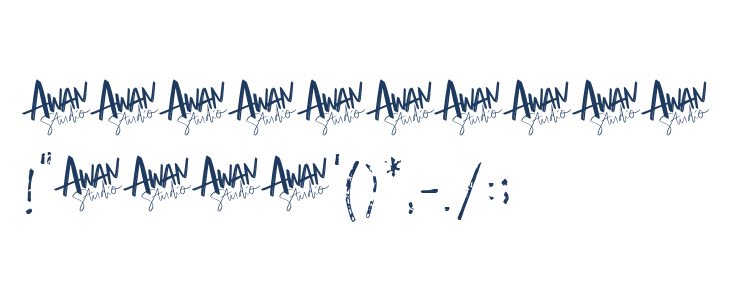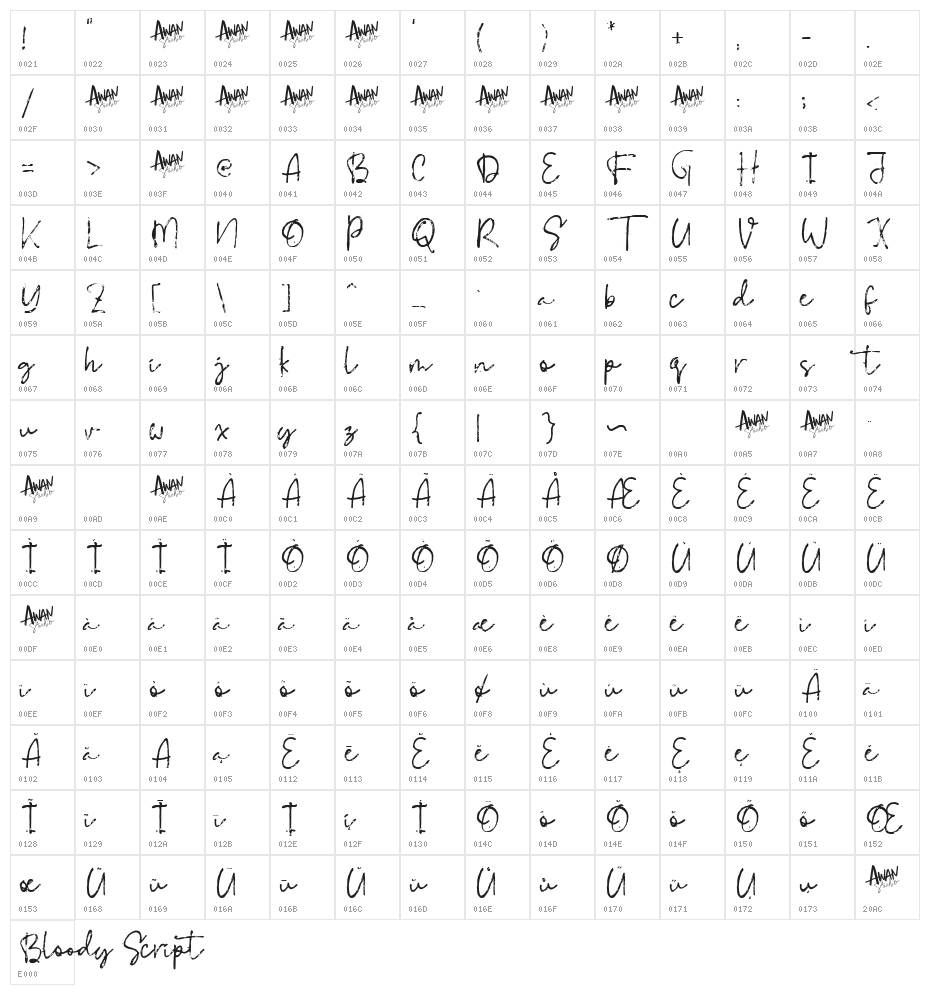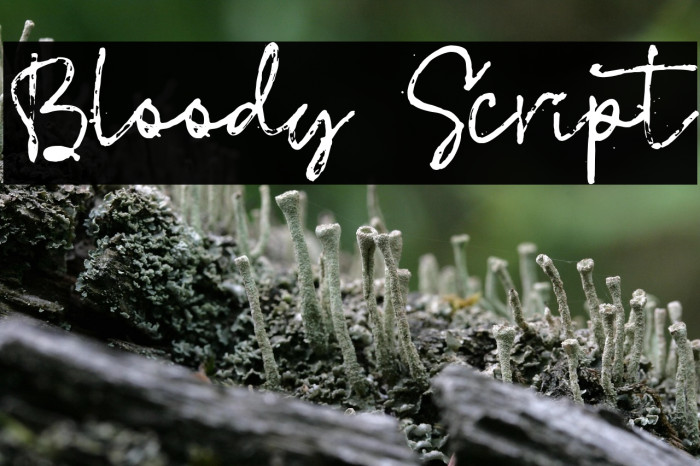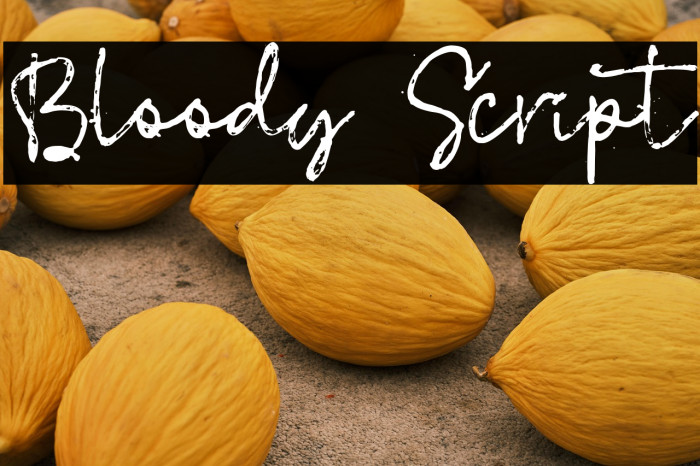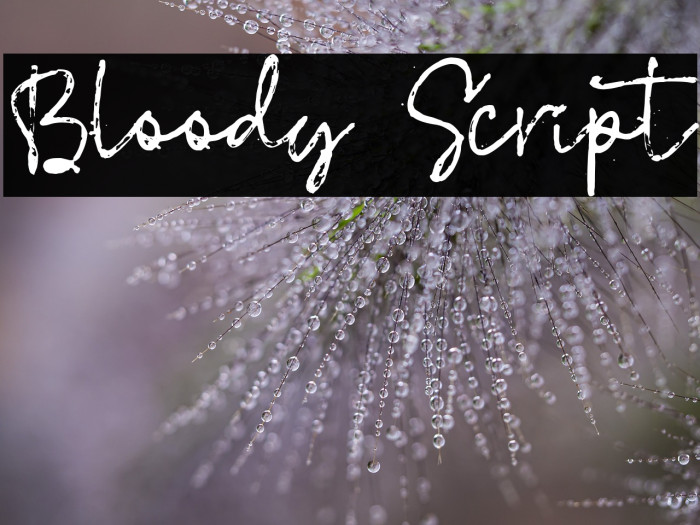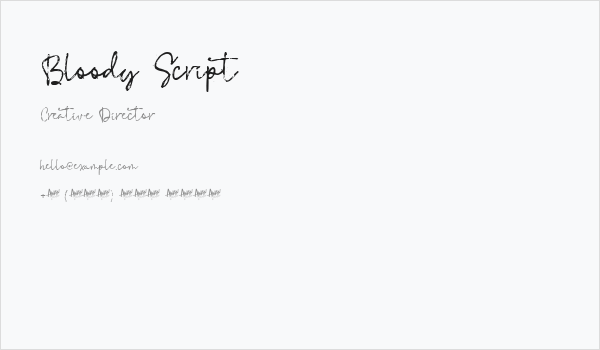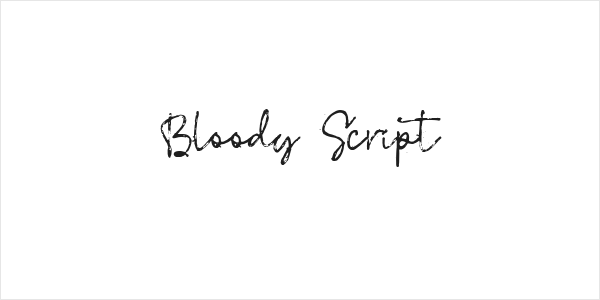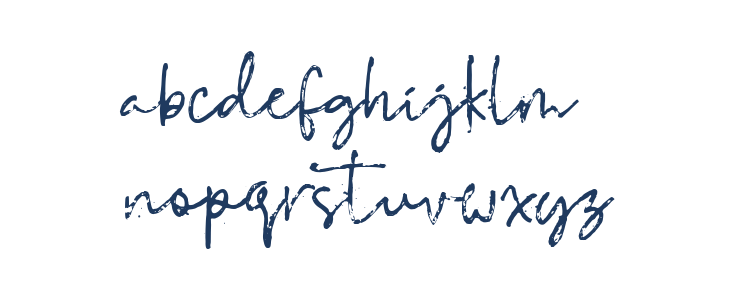
Bloody Script Font
Bloody Script Description
This font features a distressed, grungy script style that mimics the appearance of ink splatters and rough brush strokes. The uppercase and lowercase letters have a casual, handwritten feel, with varying stroke widths that create a dynamic and energetic look. The characters are slightly irregular, adding to the font's edgy and raw aesthetic. This style is perfect for projects that require a bold and artistic touch, such as album covers, posters, or branding for creative industries. The special characters maintain the same distressed appearance, ensuring consistency throughout the typeface.
| Use Case | Logos, Headlines, Artistic projects |
| Proposed Projects | Ideal for album covers, posters, artistic branding, and creative industry projects. |